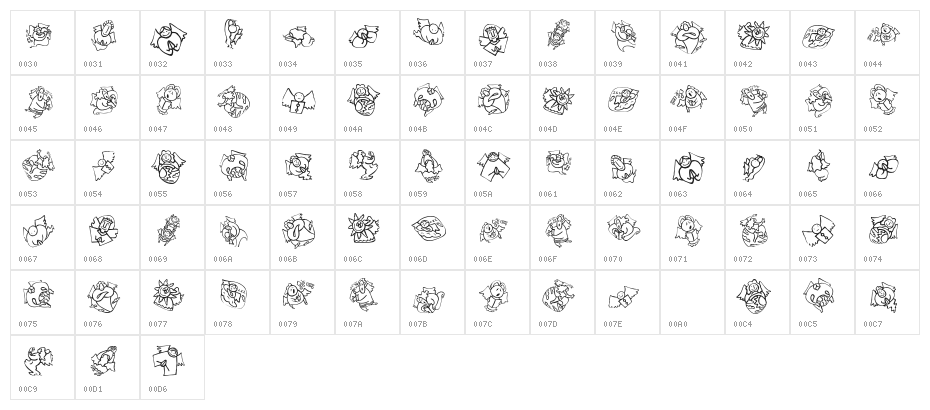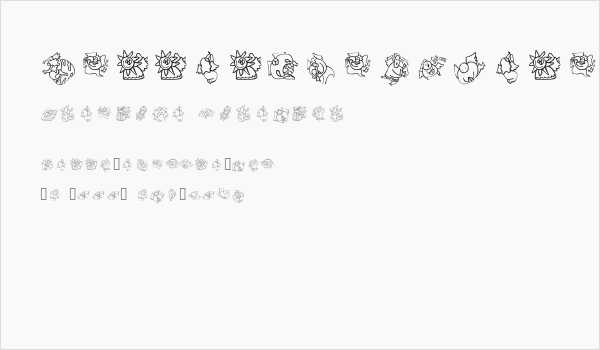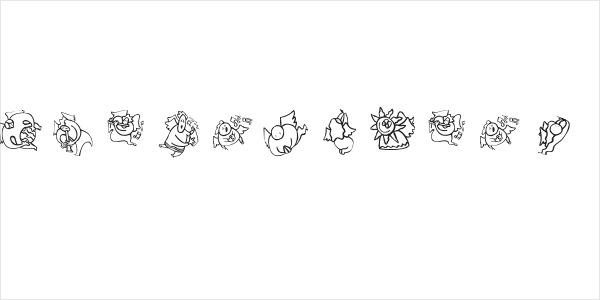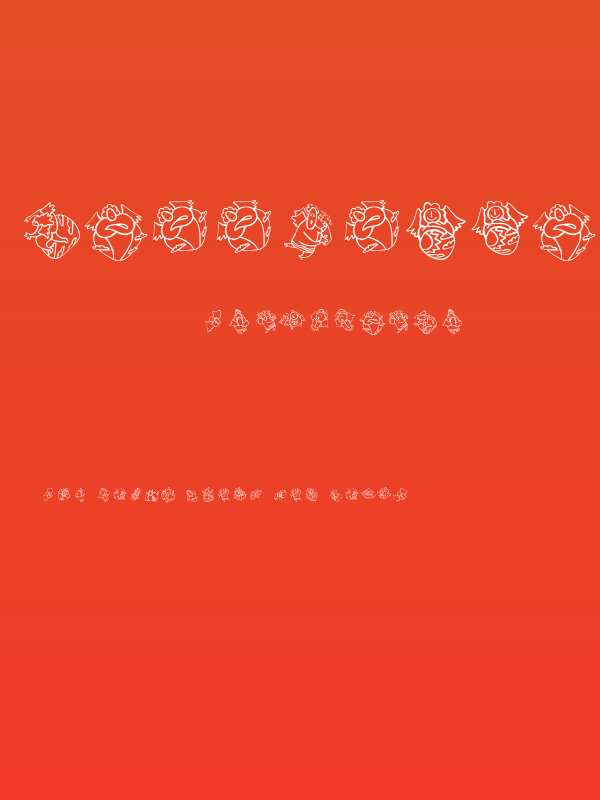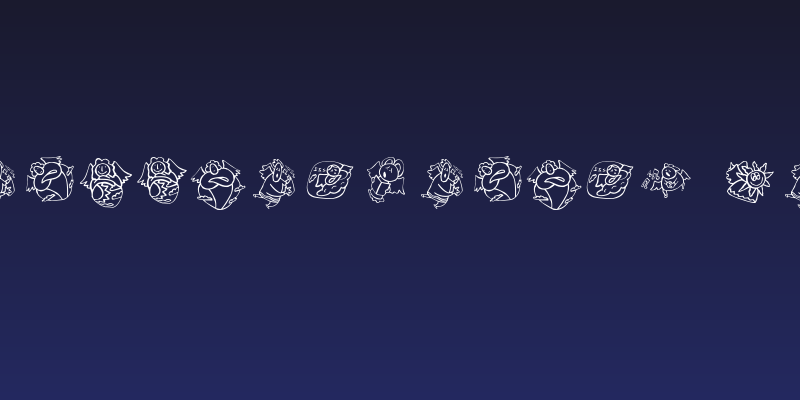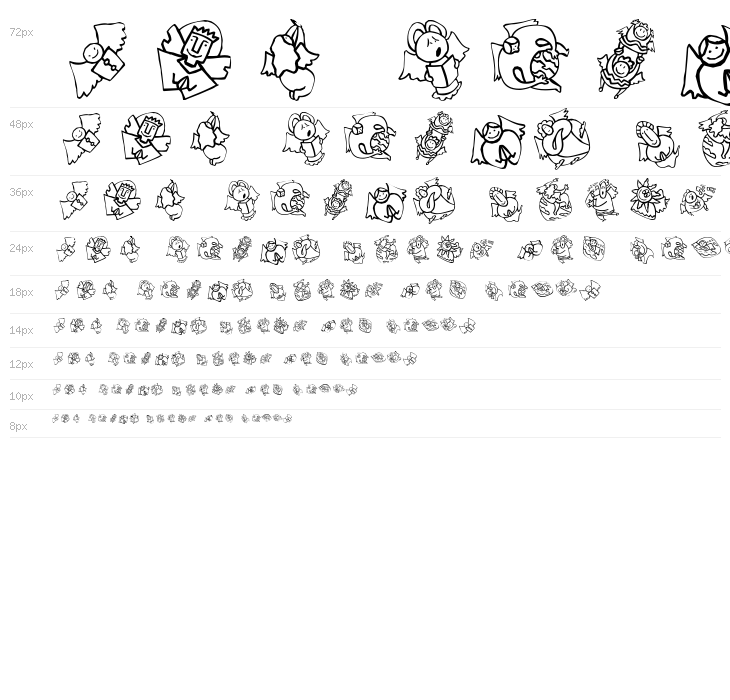
HallelujaEngeland Medium Font
HallelujaEngeland Medium Description
A highly decorative and whimsical dingbat font featuring playful, cartoon-like angel characters in place of standard alphanumeric and symbol glyphs. Each character is uniquely illustrated, giving the font a hand-drawn, lively appearance.
| Overall Style | Decorative, Whimsical, Playful |
| Use Case | Illustrative elements, decorative accents, non-textual communication. |
| Proposed Projects | Greeting cards, children's books, holiday decorations, playful branding, event invitations. |